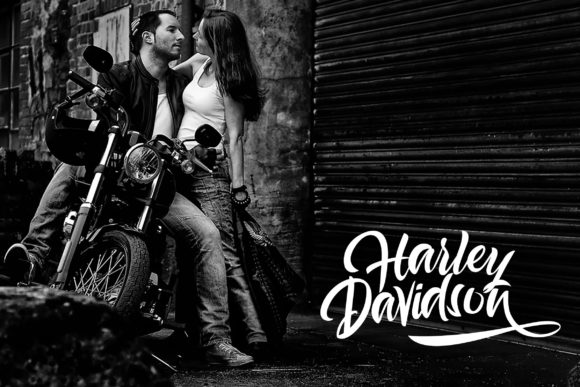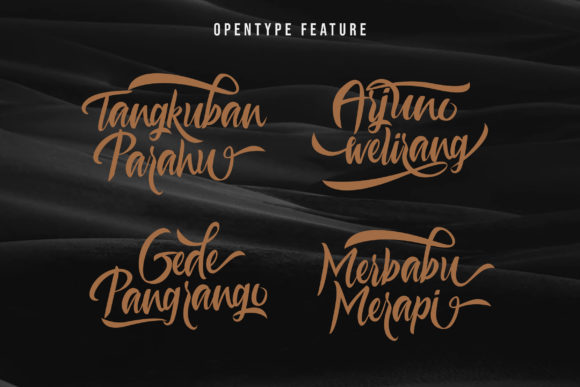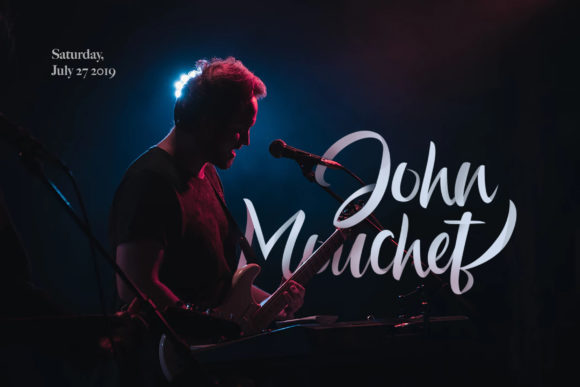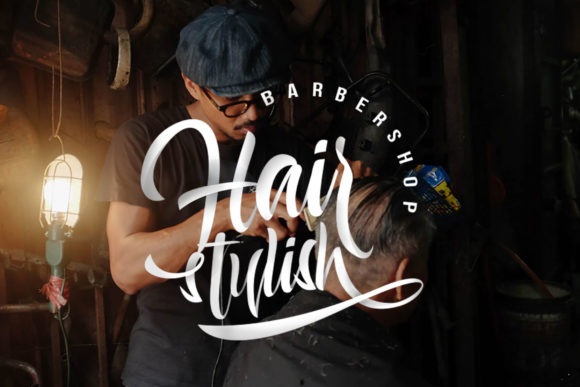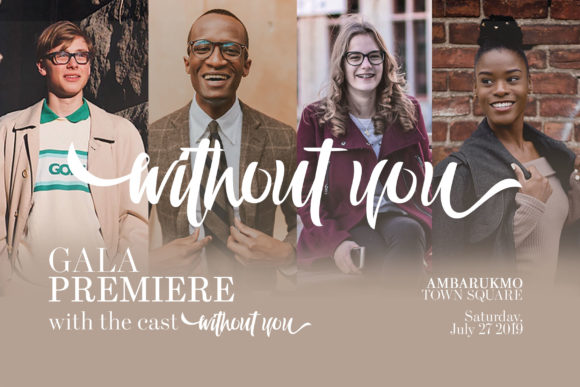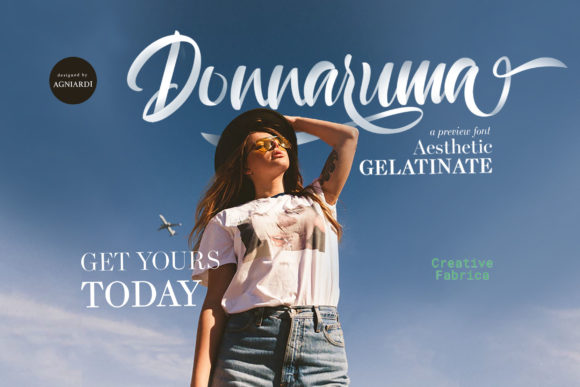
Aesthetic Gelatinate Font: Elevate Your Designs with a Fun and Dynamic Handwritten Style
In the world of typography, fonts play a crucial role in conveying the tone and personality of a design. If you’re a designer or crafter looking for a unique and eye-catching font to add to your collection, look no further than Aesthetic Gelatinate. This fun and dynamic handwritten font is sure to inspire your creativity and take your designs to the next level.
What is Aesthetic Gelatinate Font?
Aesthetic Gelatinate is a modern and bold handwritten font that adds a cool twist to traditional typography. Its contemporary style makes it perfect for designers who want to create fresh and youthful designs that stand out from the crowd. With its unique blend of bold lines and fluid curves, Aesthetic Gelatinate is sure to add a touch of personality to any design.
Key Features of Aesthetic Gelatinate Font
• Handwritten style: Aesthetic Gelatinate has a fun and dynamic handwritten style that adds a personal touch to any design.
• Contemporary boldness: This font boasts a bold and modern style that’s perfect for creating eye-catching designs.
• Unique twist: Aesthetic Gelatinate’s cool twist sets it apart from traditional handwritten fonts, making it a great choice for designers who want to try something new.
• Versatile: This font can be used for a wide range of design projects, from branding and advertising to packaging and digital media.
Why Choose Aesthetic Gelatinate Font?
So why choose Aesthetic Gelatinate font for your next design project? Here are just a few reasons:
• Add personality to your designs: Aesthetic Gelatinate’s unique style allows you to add a personal touch to your designs and make them stand out.
• Create a youthful vibe: This font’s modern and bold style is perfect for creating designs that appeal to a younger audience.
• Easy to read: Despite its bold style, Aesthetic Gelatinate is easy to read, making it perfect for body text and headlines.
• Flexible: This font can be used in a variety of design contexts, from digital media to print materials.
How to Use Aesthetic Gelatinate Font in Your Designs
Using Aesthetic Gelatinate font in your designs is easy. Here are a few tips to get you started:
• Pair it with a neutral font: Pair Aesthetic Gelatinate with a neutral font to create contrast and add visual interest to your design.
• Use it for headlines: This font’s bold style makes it perfect for headlines and titles.
• Experiment with colors: Aesthetic Gelatinate looks great in a variety of colors, so don’t be afraid to experiment and find the perfect hue for your design.
• Play with texture: Add texture to your design by layering Aesthetic Gelatinate over a background image or texture.
Aesthetic Gelatinate font is a fun and dynamic handwritten font that’s perfect for designers and crafters who want to add a touch of personality to their designs. With its contemporary boldness and unique twist, this font is sure to inspire your creativity and take your designs to the next level. So why not give it a try and see how Aesthetic Gelatinate can elevate your designs?
Whether you’re a seasoned designer or just starting out, Aesthetic Gelatinate font is a great addition to your font collection. Its versatility, readability, and youthful vibe make it perfect for a wide range of design projects. So go ahead, get creative, and see what amazing designs you can create with Aesthetic Gelatinate font!